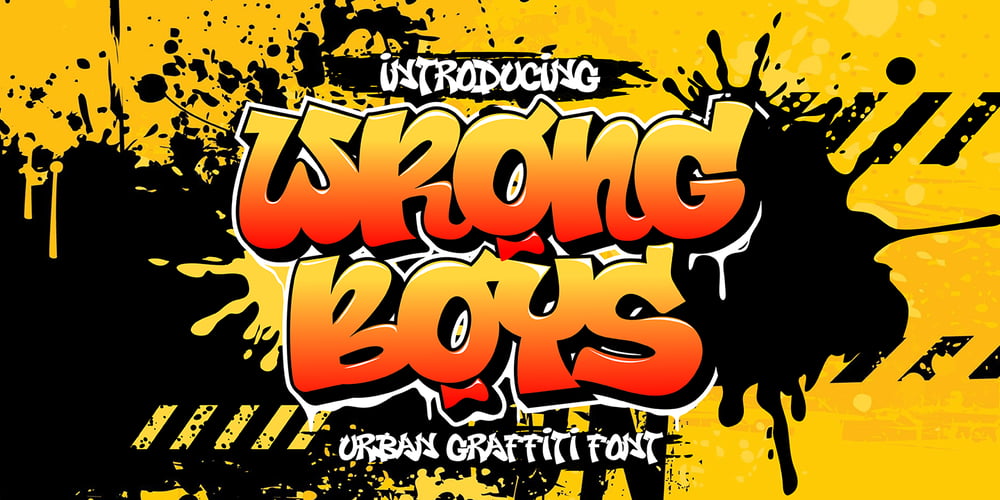
Wrong Boys Graffiti Font Family was designed by Sipanji and published by Sipanji21. Wrong Boys Graffiti contains 1 styles and family package options. Wrong Boys is a spectacular Display font with a Fatty and Thick graffiti style for your design look awesome. It will elevate a wide range of design projects to the highest level, be it branding, headings, wedding designs, invitations, signatures, logotype, wall art illustration, apparel, labels, and much more!If you find some problem please chat meHave A Nice Day